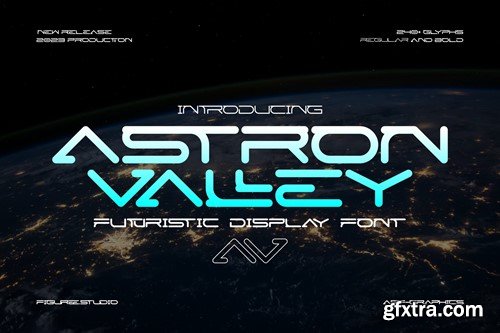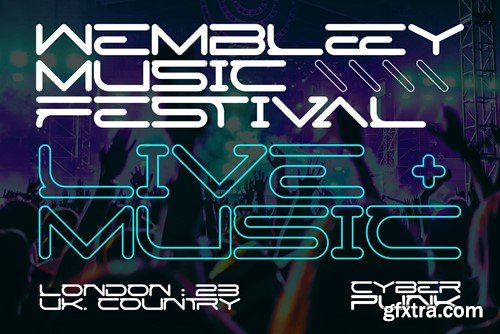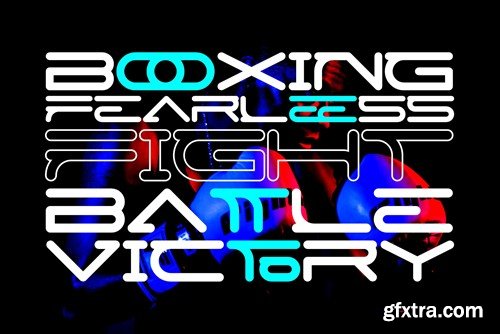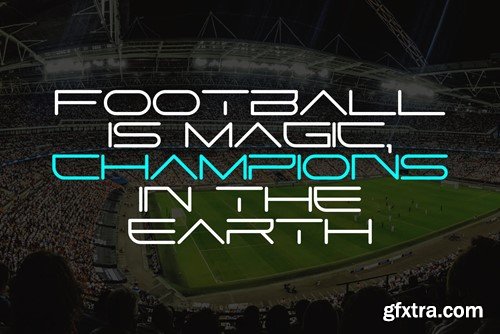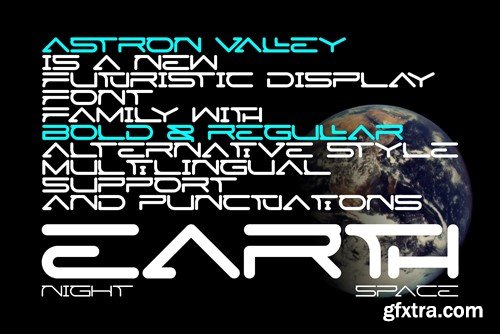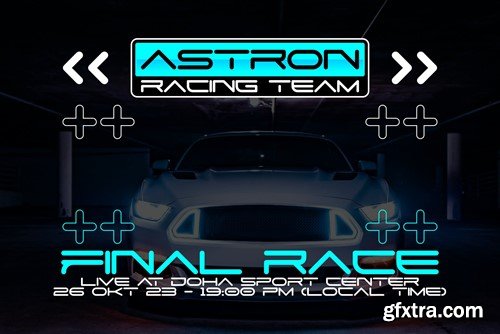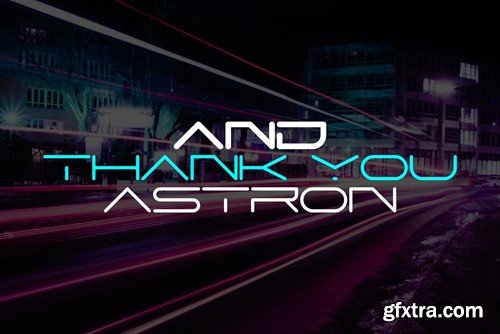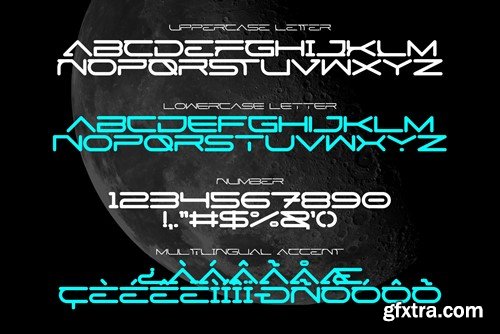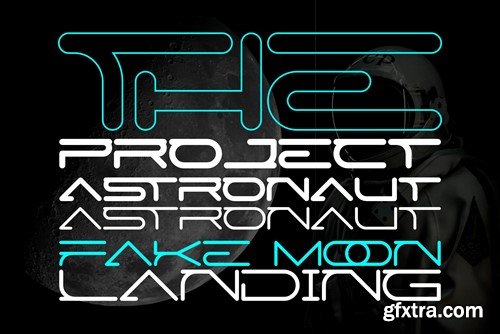
Astron Valley - Futuristic Display Font
Astron Valley is a captivating futuristic display font that catapults your designs into the realms of tomorrow. With its sleek, cutting-edge lettering, it embodies the spirit of innovation and advanced technology, making it the perfect choice for projects that demand a forward-thinking, high-tech, and otherworldly style. Whether it's used in sci-fi artwork, tech branding, or any design aiming to convey a sense of future sophistication, Astron Valley adds a dynamic and visionary touch to your typography, propelling your text into the cosmic future.